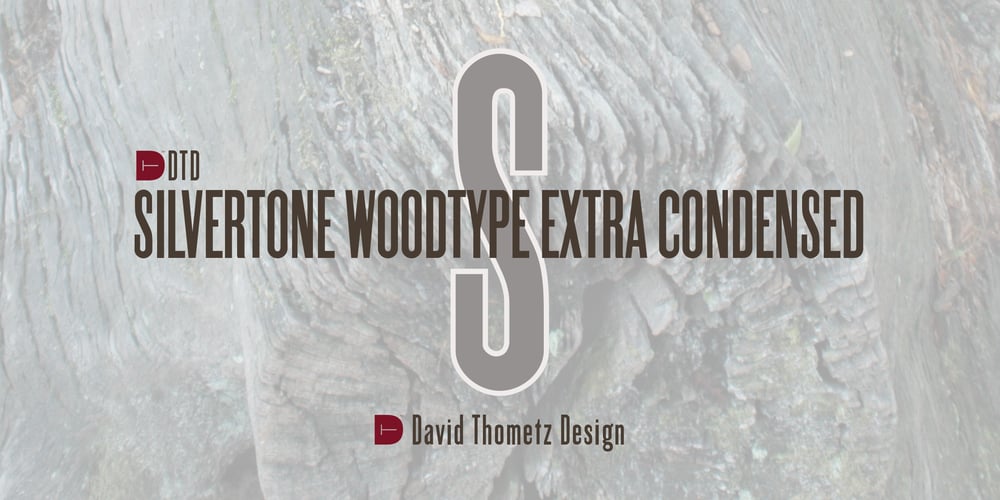
Silvertone Woodtype Font Family was designed by David Thometz and published by David Thometz Design. Silvertone Woodtype contains 2 styles and family package options. As seen on Typophile.com, DTD Silvertone Woodtype had its roots in capitals and figures from a specimen of Ludlow 6-EC Gothic Extra Condensed woodtype. Thometz interpreted and expanded on the set, adding an original lower case and a set of alternates.